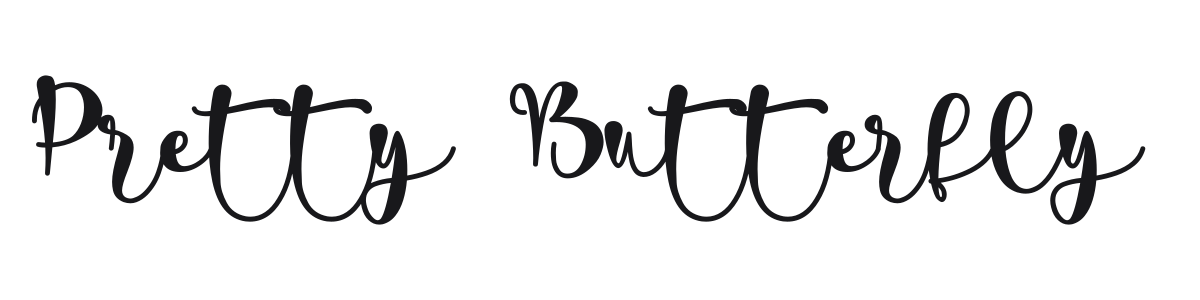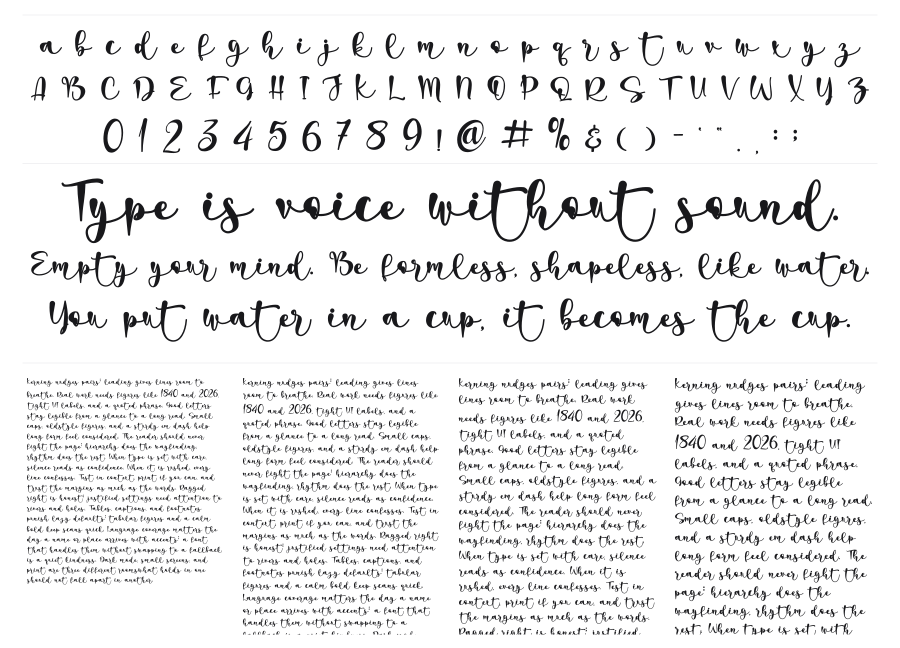
Pretty Butterfly
Pretty Butterfly is a lively casual script with a bouncing baseline and fluid connected strokes that feel both polished and spontaneous. Thick-to-thin stroke contrast adds calligraphic elegance without tipping into formality, keeping the overall mood warm and approachable. It works well in branding, packaging, and social media graphics where a handcrafted feminine touch is the goal.